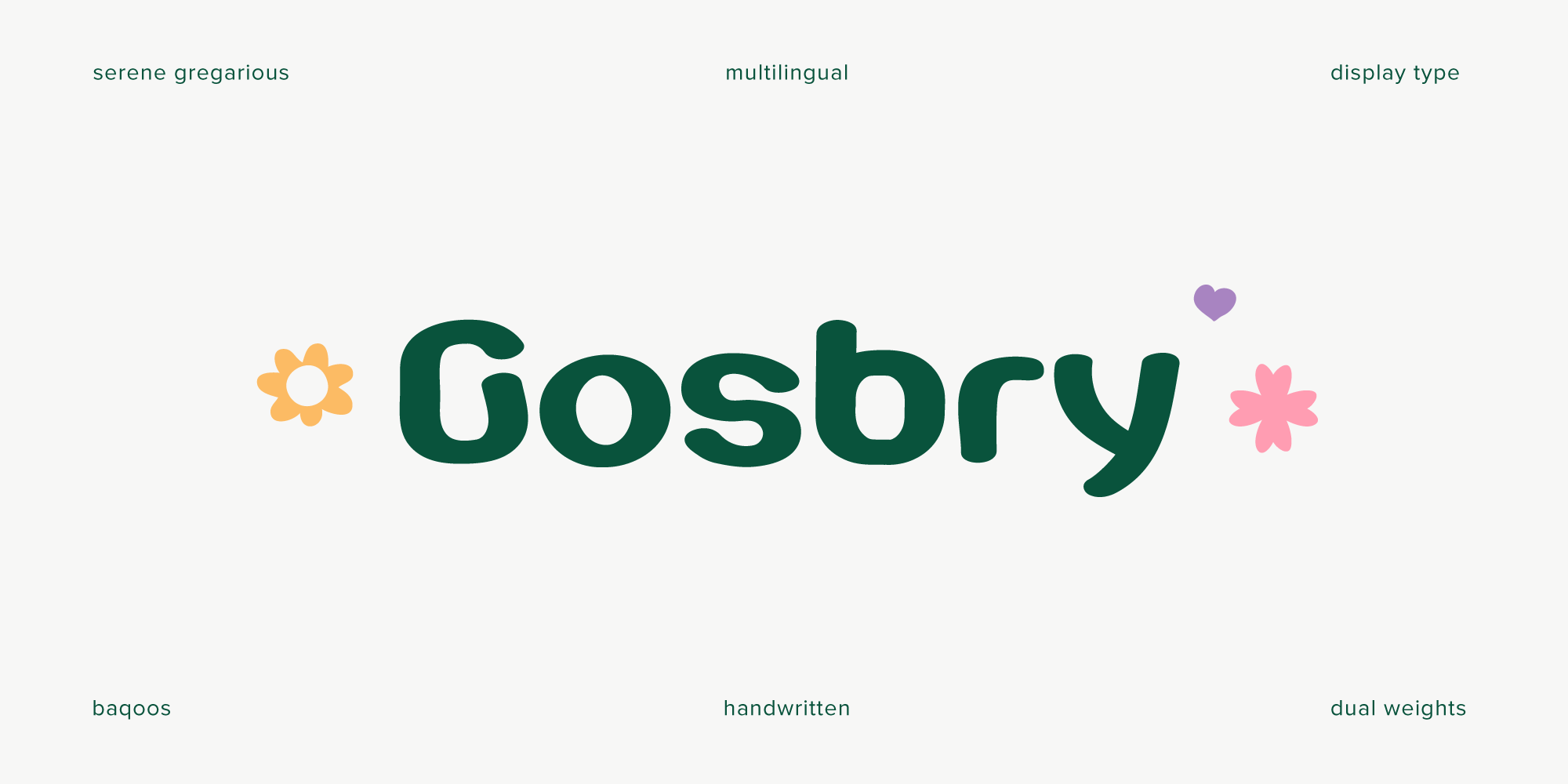
Gosbry Font Free Download – Bold Creativity for Modern Designers
Need a font that captures attention while keeping your design clean and contemporary? Gosbry Font Free Download is the perfect choice for creatives who want something fresh, bold, and versatile. This modern sans-serif font stands out with its clean lines, smooth curves, and friendly yet professional appearance.
Gosbry is incredibly adaptable. It works brilliantly in branding, digital ads, minimalist websites, packaging, and even tech startup presentations. Whether you're designing logos, headlines, app interfaces, or social media graphics, Gosbry gives your text a confident and modern identity. Its readability and visual balance make it a solid option for both large headings and smaller body text.
Gosbry proves that simplicity doesn't mean boring — it means powerful clarity. Let this modern gem be the foundation of your next design success story.